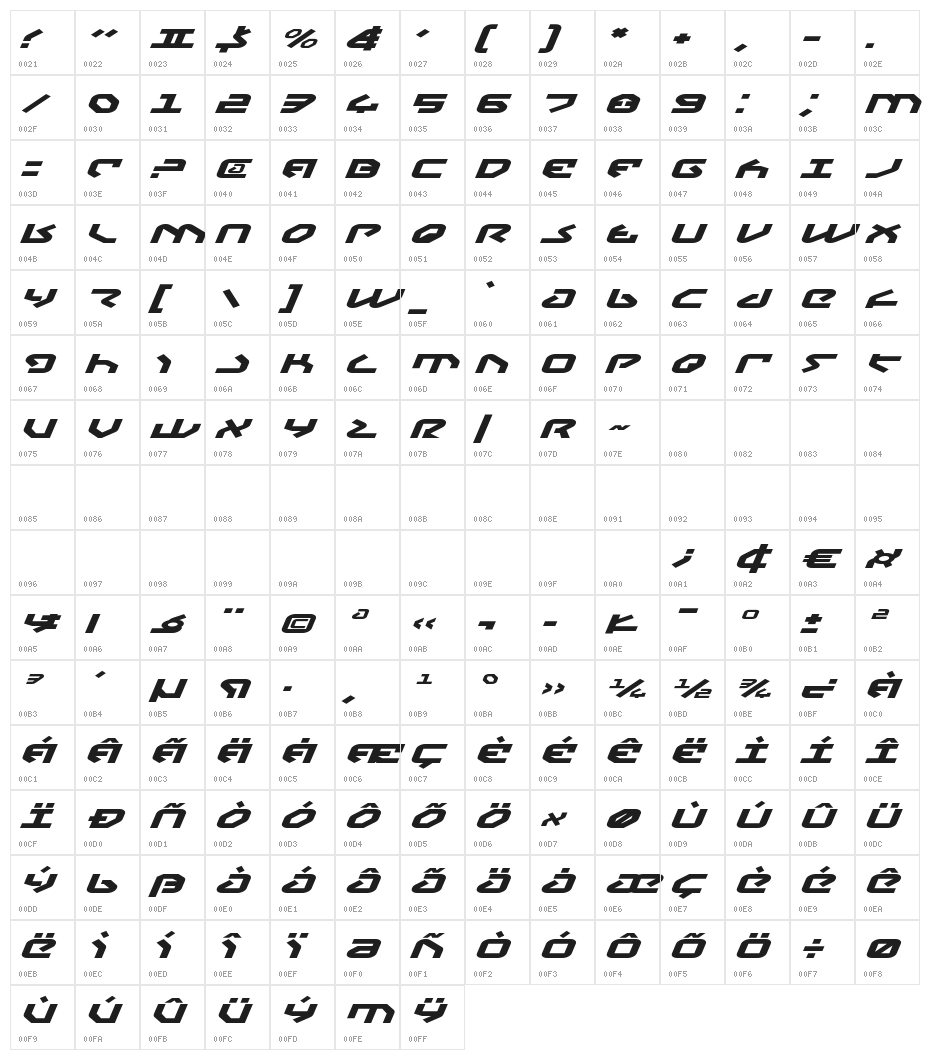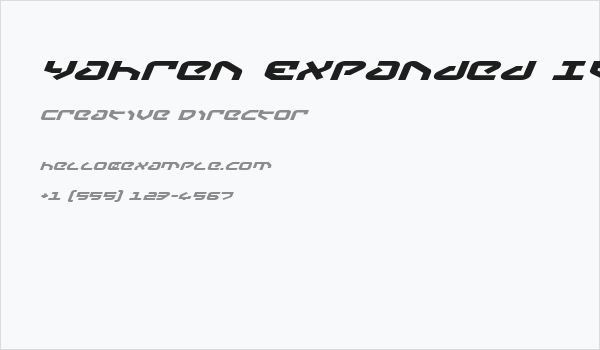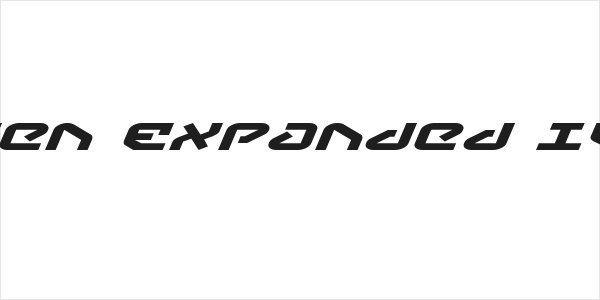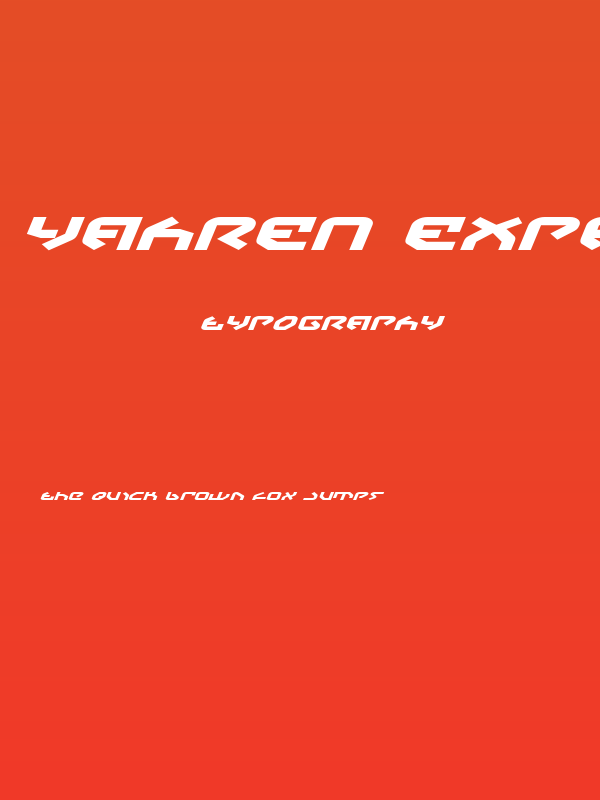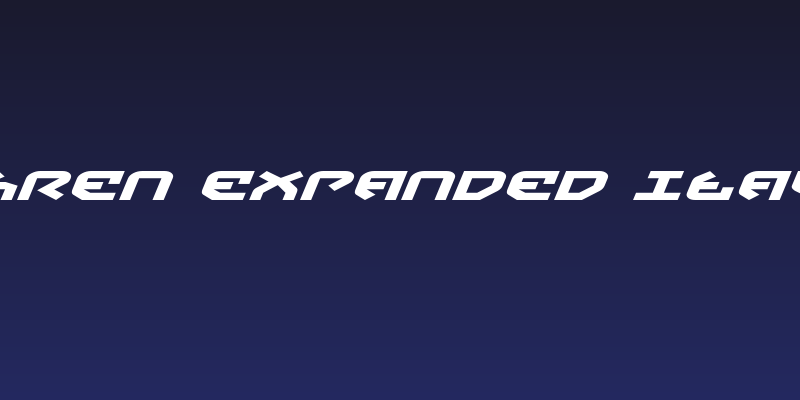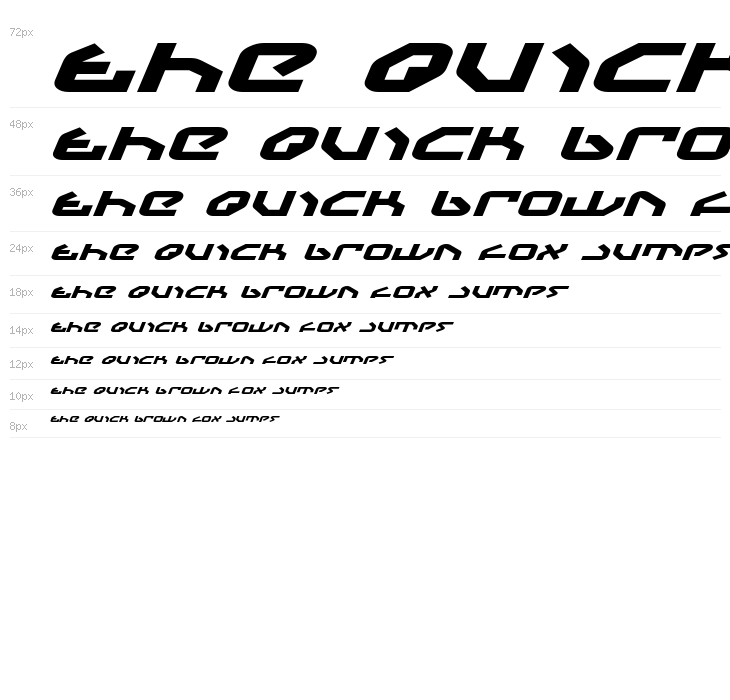
Yahren Expanded Italic Font
Yahren Expanded Italic Description
This font features a bold and dynamic design with an italic slant, giving it a sense of motion and energy. The characters are expanded, providing a wide stance that enhances readability while maintaining a unique style. The angular and geometric shapes of the letters create a futuristic and modern appearance, making it suitable for projects that require a strong visual impact. The consistent stroke width across characters ensures uniformity, while the expanded width allows for clear distinction between each letter. This font is ideal for headlines, logos, and any design that aims to capture attention with a bold statement.
| Proposed Projects | Ideal for futuristic branding, sports team logos, tech event posters, and dynamic headlines. |